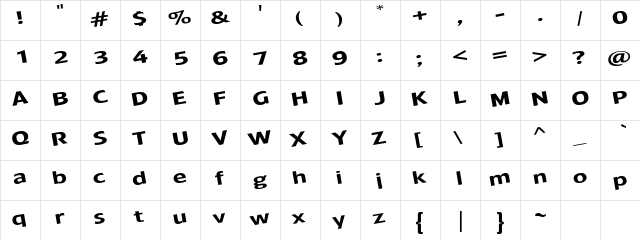
JamesBond Regular Font Preview
JamesBond Regular
JamesBond Regular Font Details
Design Context for JamesBond Typeface
JamesBond offers clean, dependable letterforms without strong stylistic allegiance, making it a practical choice for designers who need flexibility.
Pro Tip: Pair JamesBond with a font of contrasting weight or personality to build a more expressive typographic hierarchy.